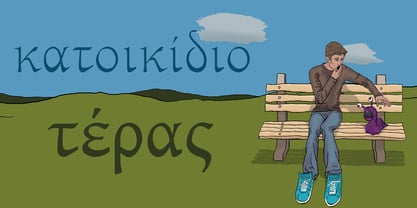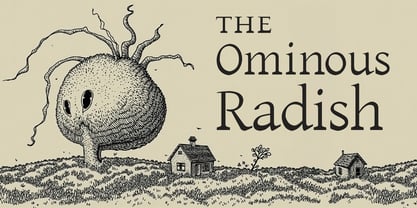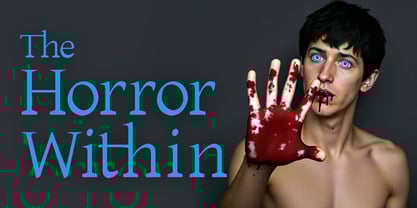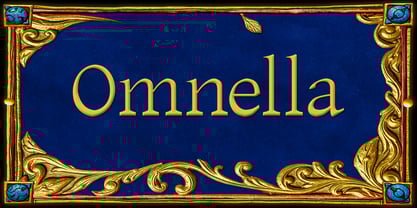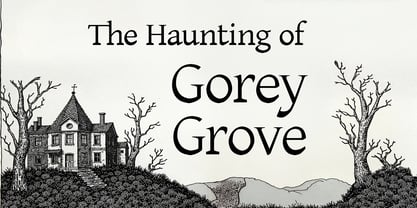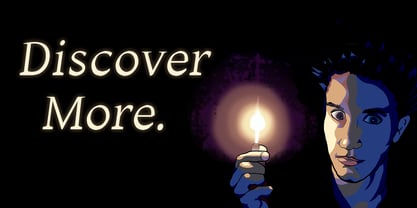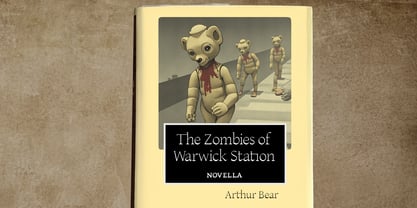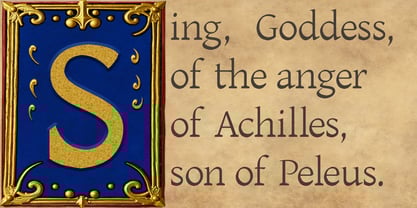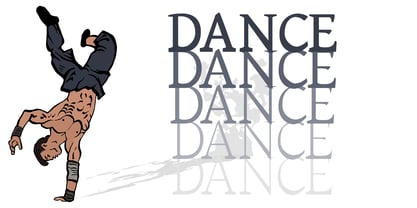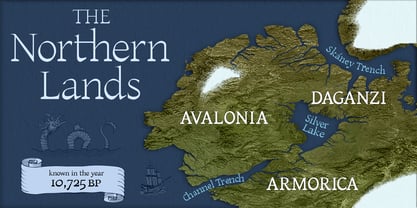
The Omnella Font Family was designed by Gregory Stevens and published by Second Circle Font Foundry. Omnella contains 8 styles and family package options.
The Omnella font is elegant and distinctive, with dark undertones reminiscent of 1910s horror novellas. It evokes the intricate illustrations of Aubrey Beardsley, the charm of bookplates in leather-bound tomes, and the cozy ambiance of sipping brandy in a wingback chair by the fire at The Lodge. Picture vintage Halloween ephemera and the gothic but whimsical artwork of Edward Gorey. This versatile workhorse font features eight styles that cover both Latin and Greek alphabets, complete with accents, modern and historical ligatures, and individual character alternatives to accommodate a broad range of both modern and classical aesthetics. The thin serifs impart an elegant and professional aura, while allowing it to harmonize beautifully with sans serif fonts in both print and digital applications. Variations in shape and stroke width enhance accessibility, giving each letter a distinctive geometry while maintaining legibility. Check out the Second Circle Font Foundry website for more Omnella documentation and sample artwork.
Omnella